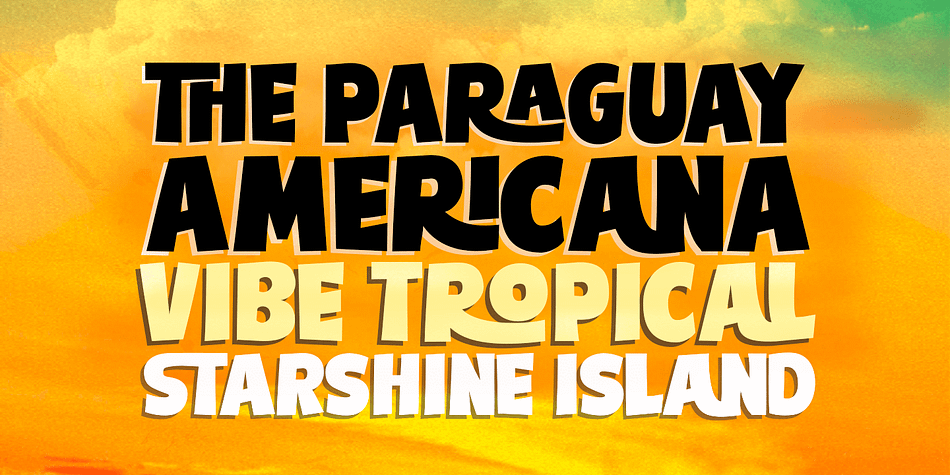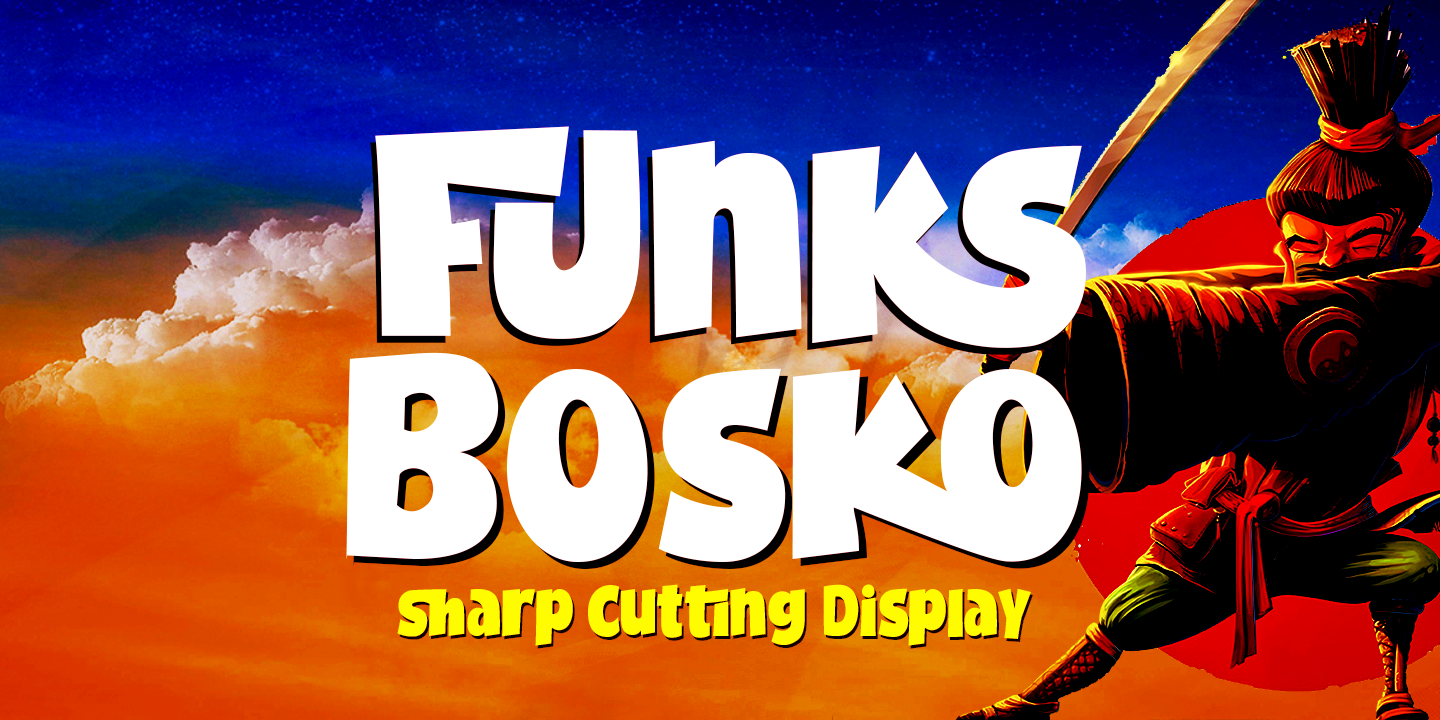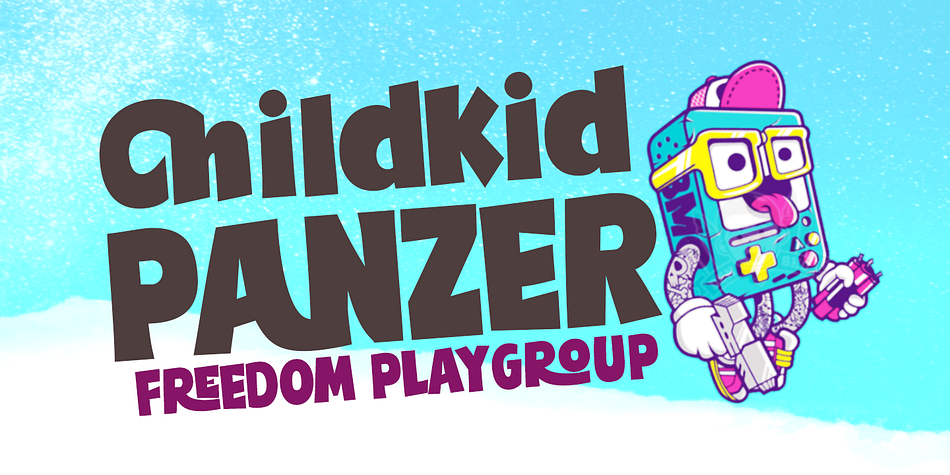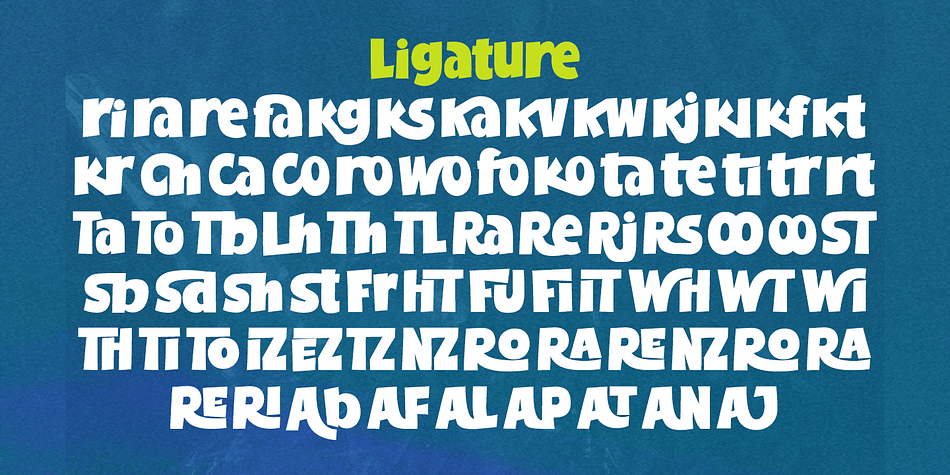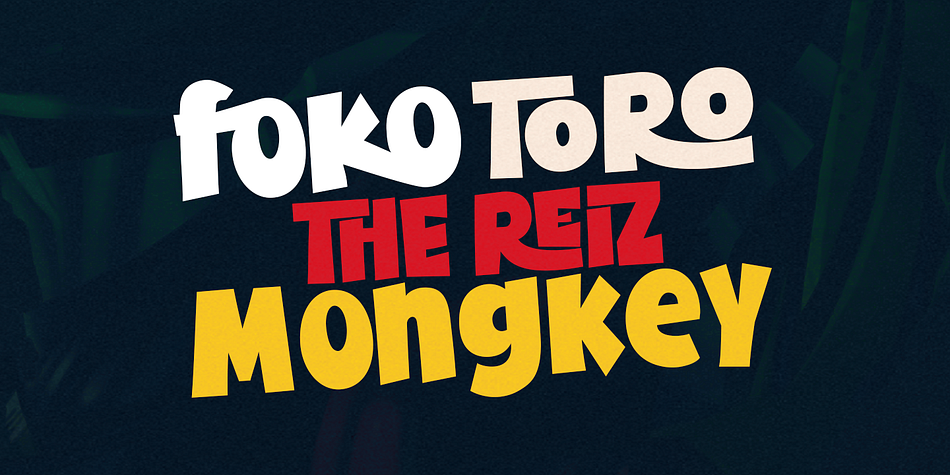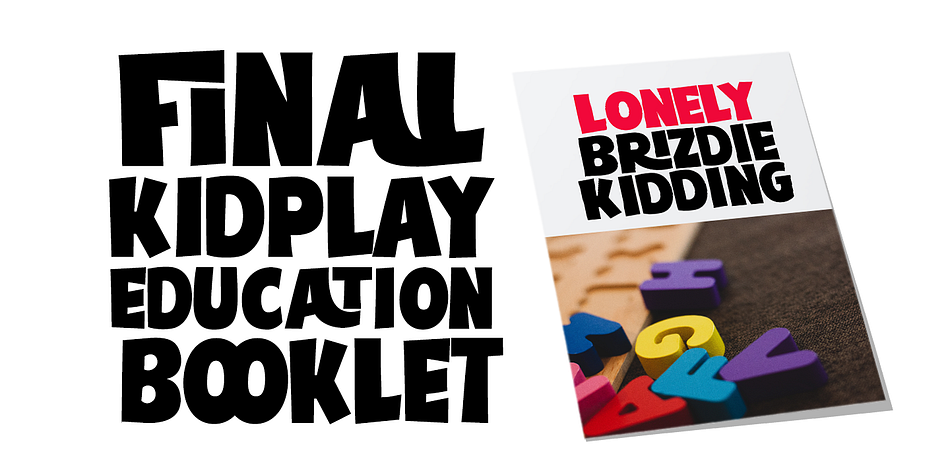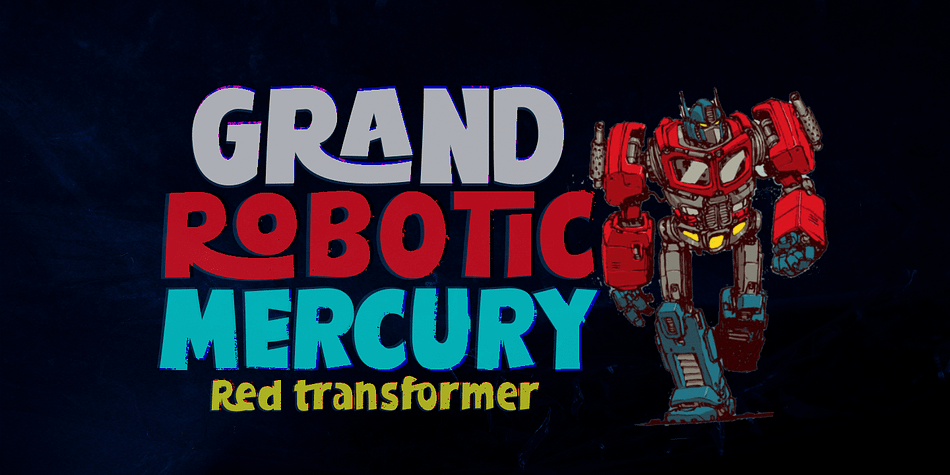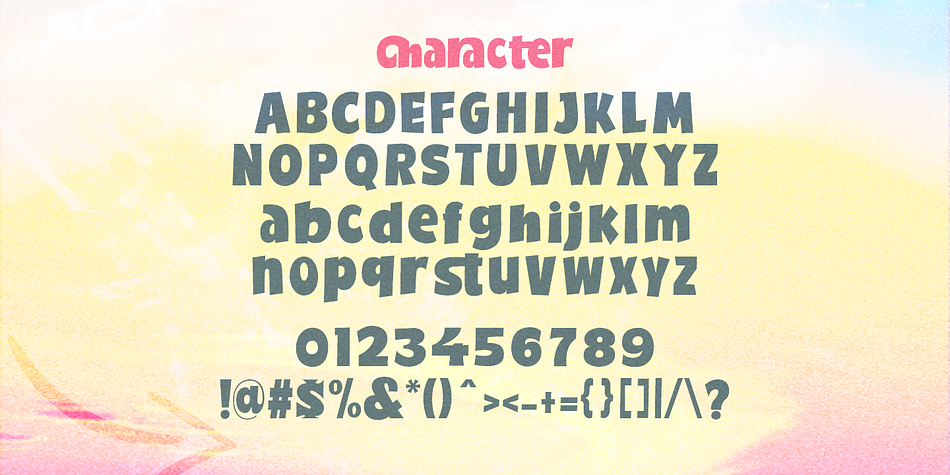
Funks Bosko
Funks Bosko is a display sans font family published by Genesislab.
Funks Bosko is a sharp and bold display font, a trendy font that is very unique with a blend of modern character ligatures, and in my opinion, this product matches the theme of the teaser display in every headline design, business card, leaflet, magazine, children’s event, and brand screen printing.